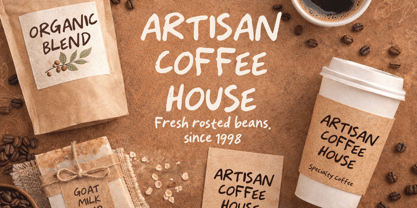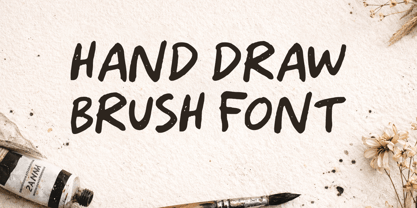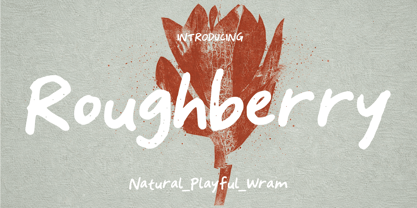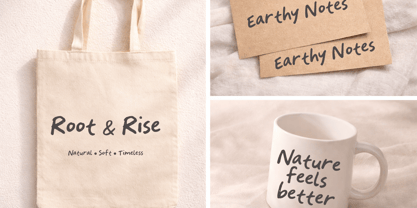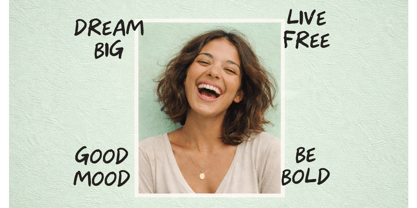
Roughberry
by Cocodesign
The Roughberry Font Family was designed by Muhammad Zaini and published by Cocodesign. Roughberry contains 1 styles. More about this family
Roughberry – Natural Playful Brush Font Roughberry is a natural brush font that brings a warm and playful feel into your designs. With its slightly rough strokes and organic flow, it creates a unique and lively look while staying clean and easy to read. Each letter is crafted with a natural hand-drawn style, enhanced by subtle texture details that give a handmade touch without looking messy.
Designers: Muhammad Zaini
Foundry: Cocodesign